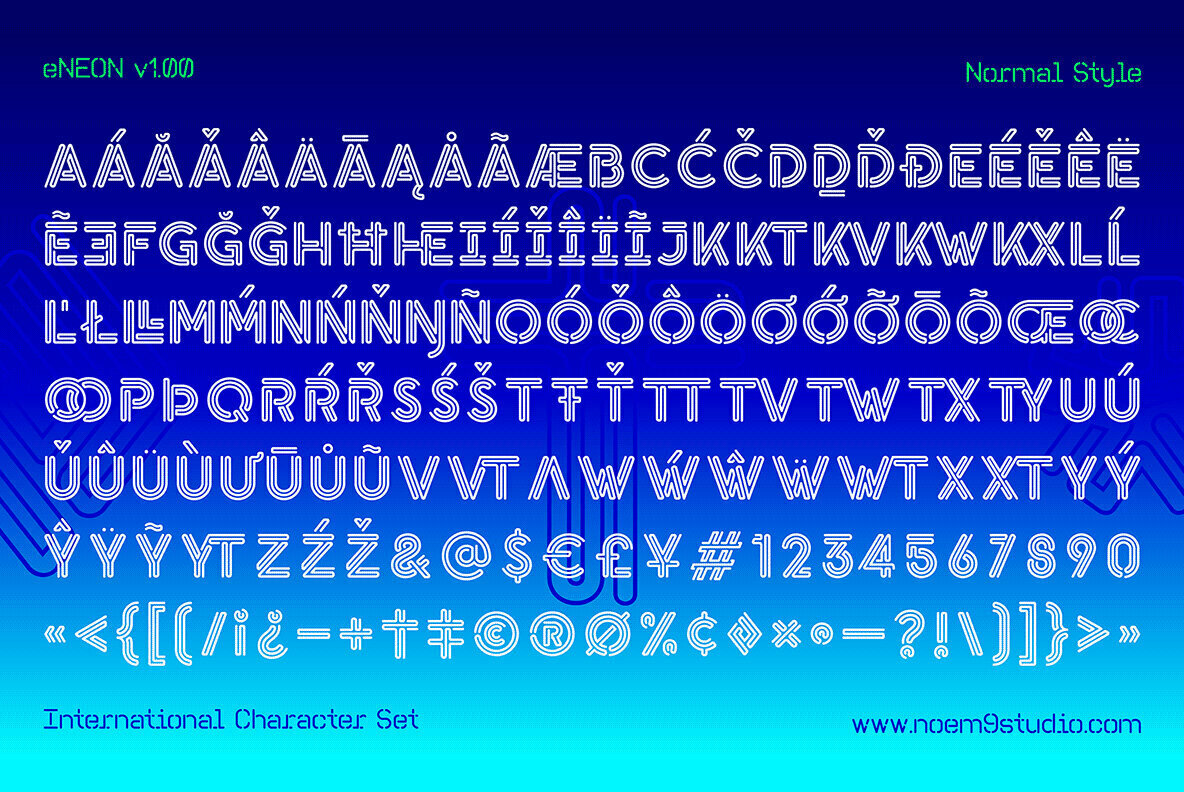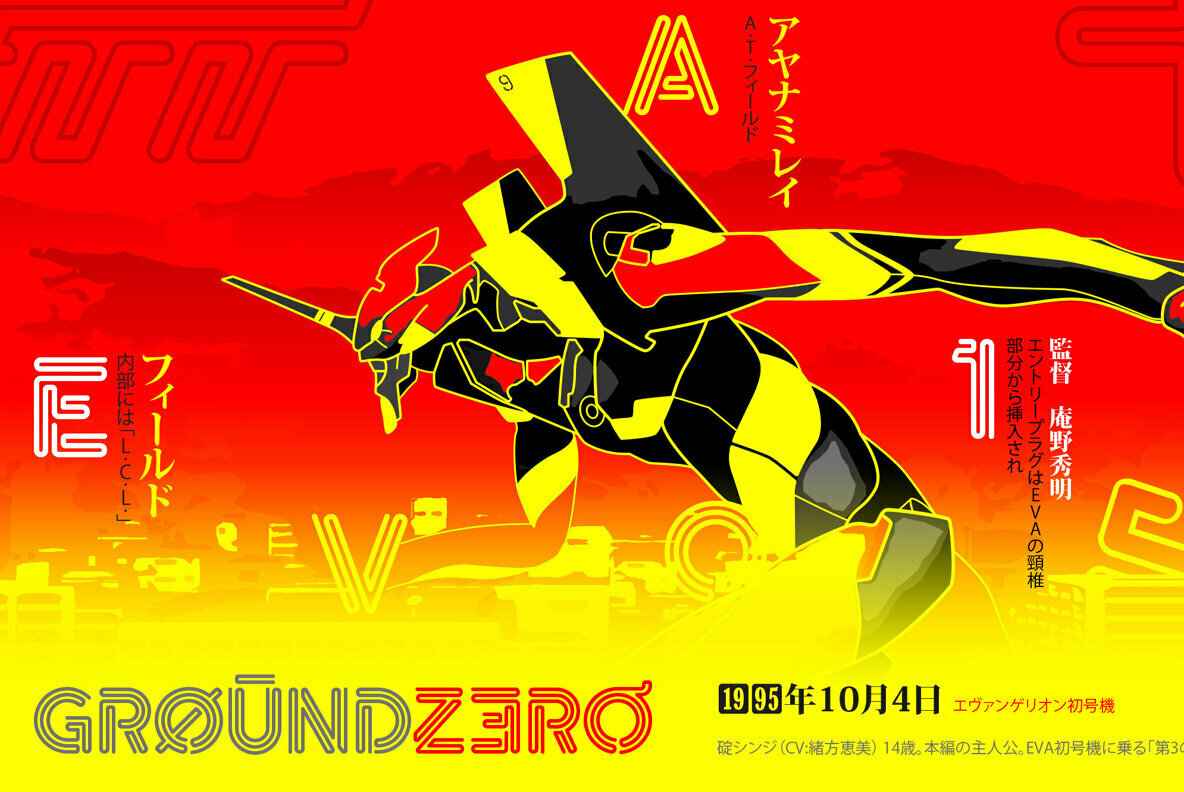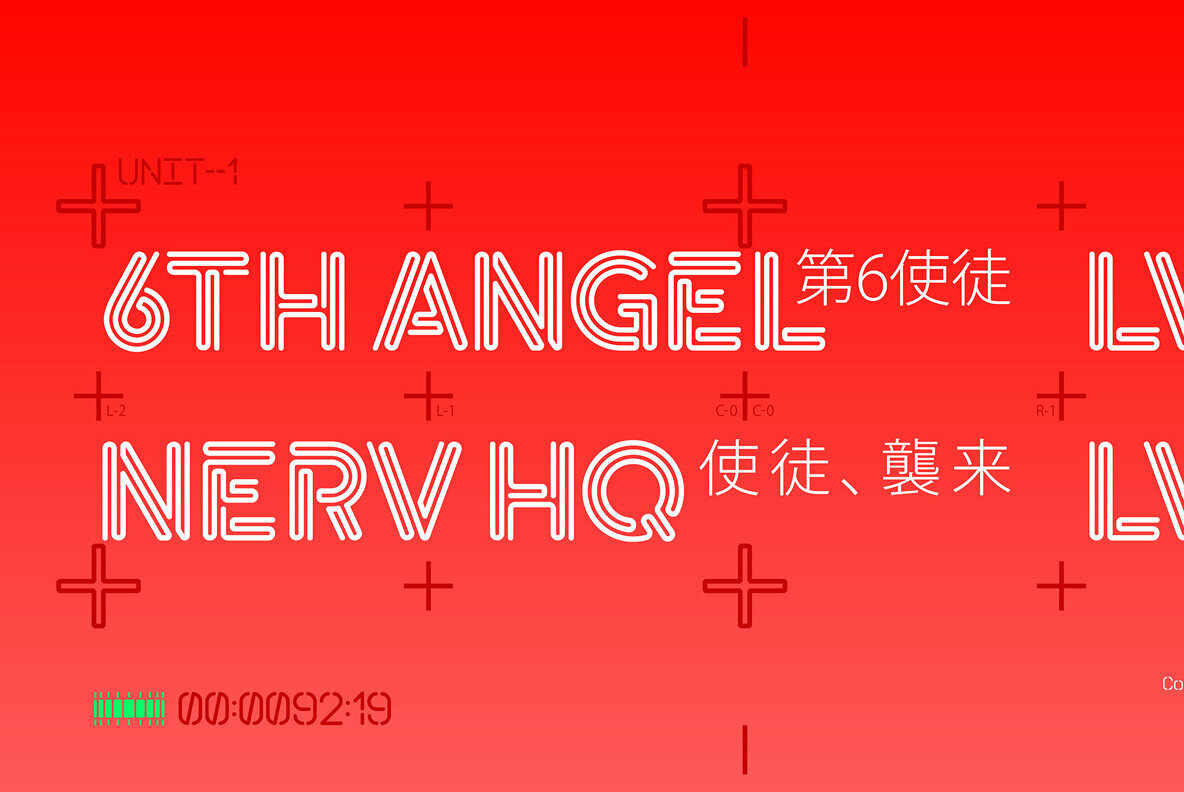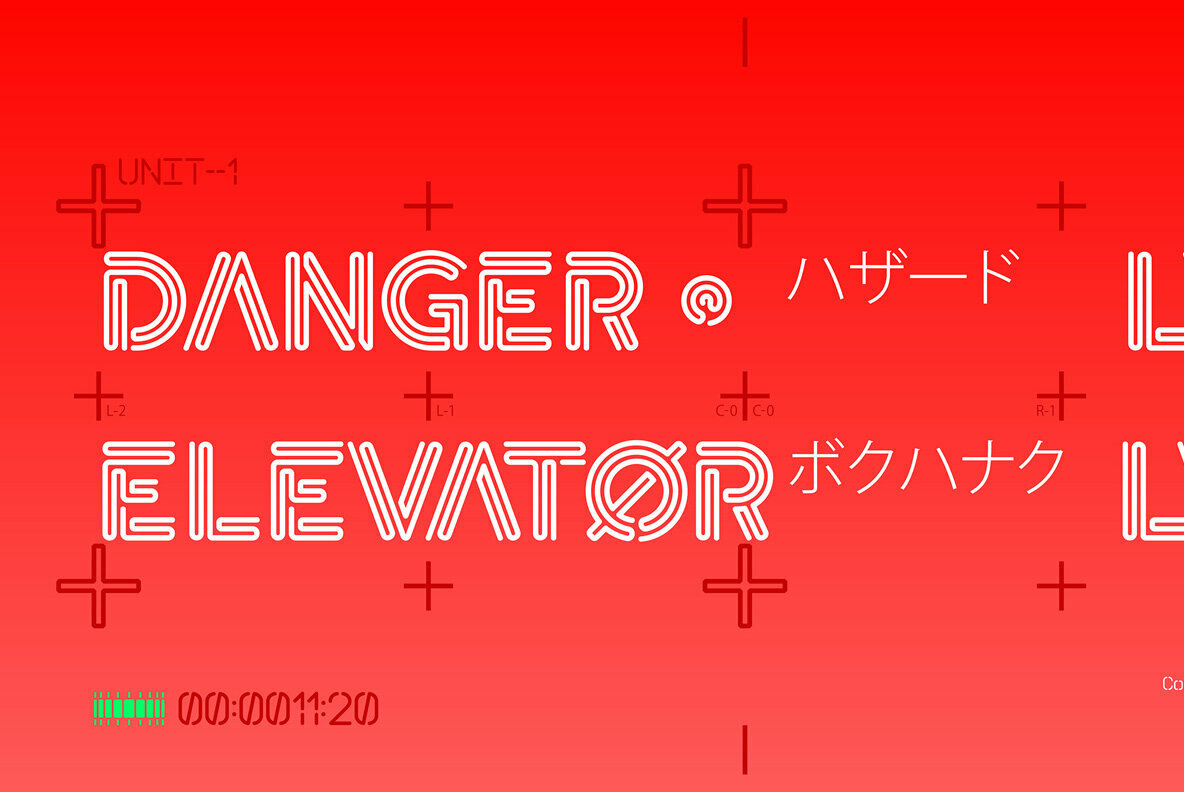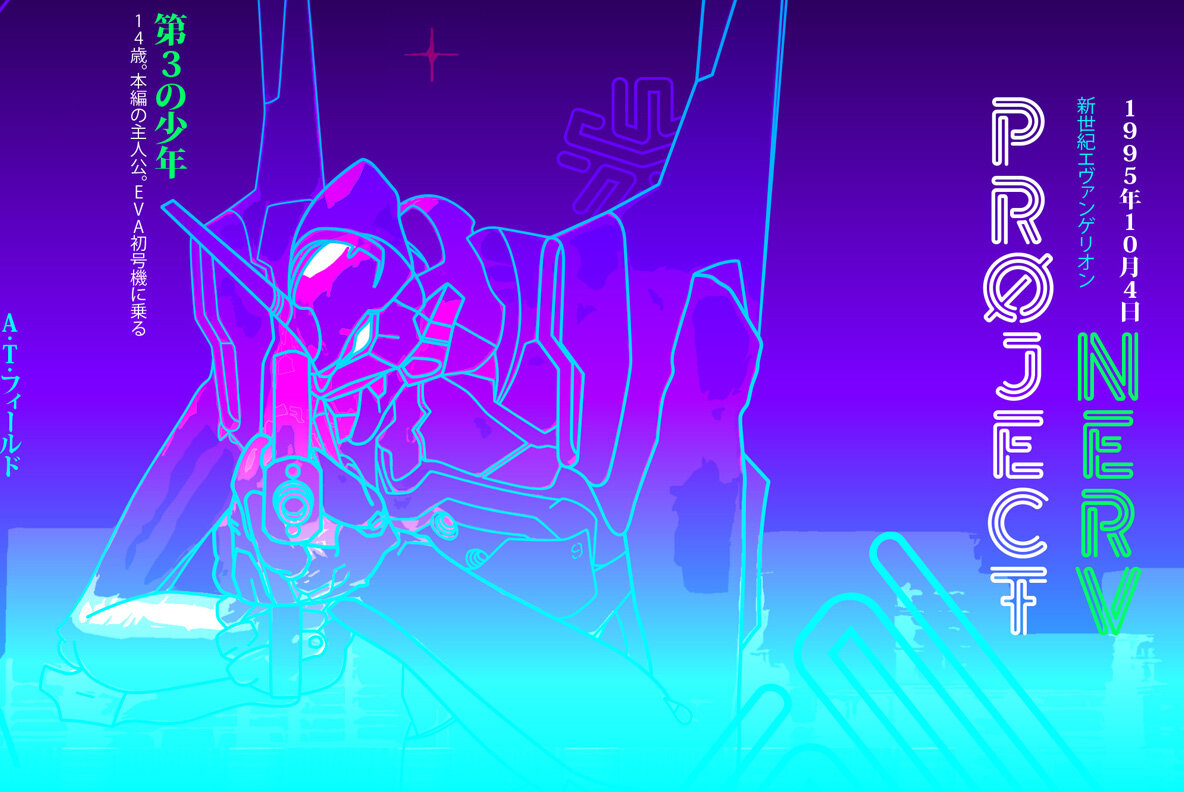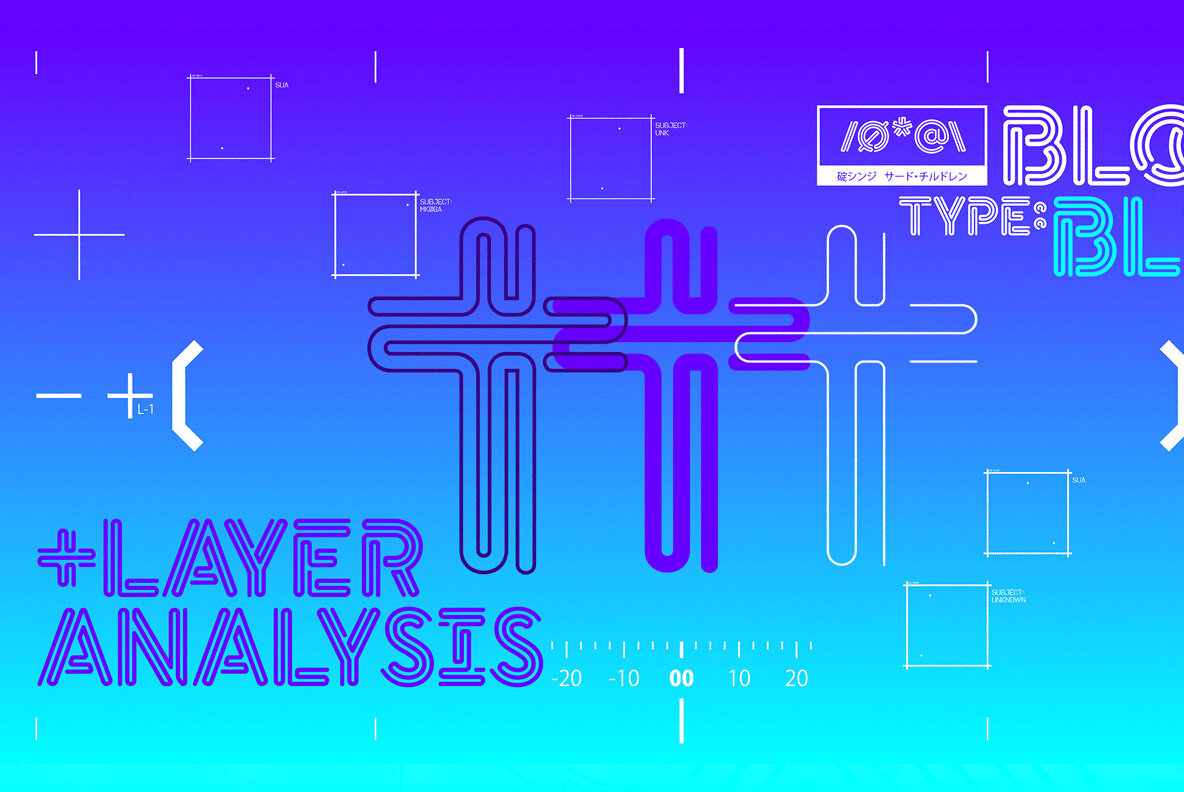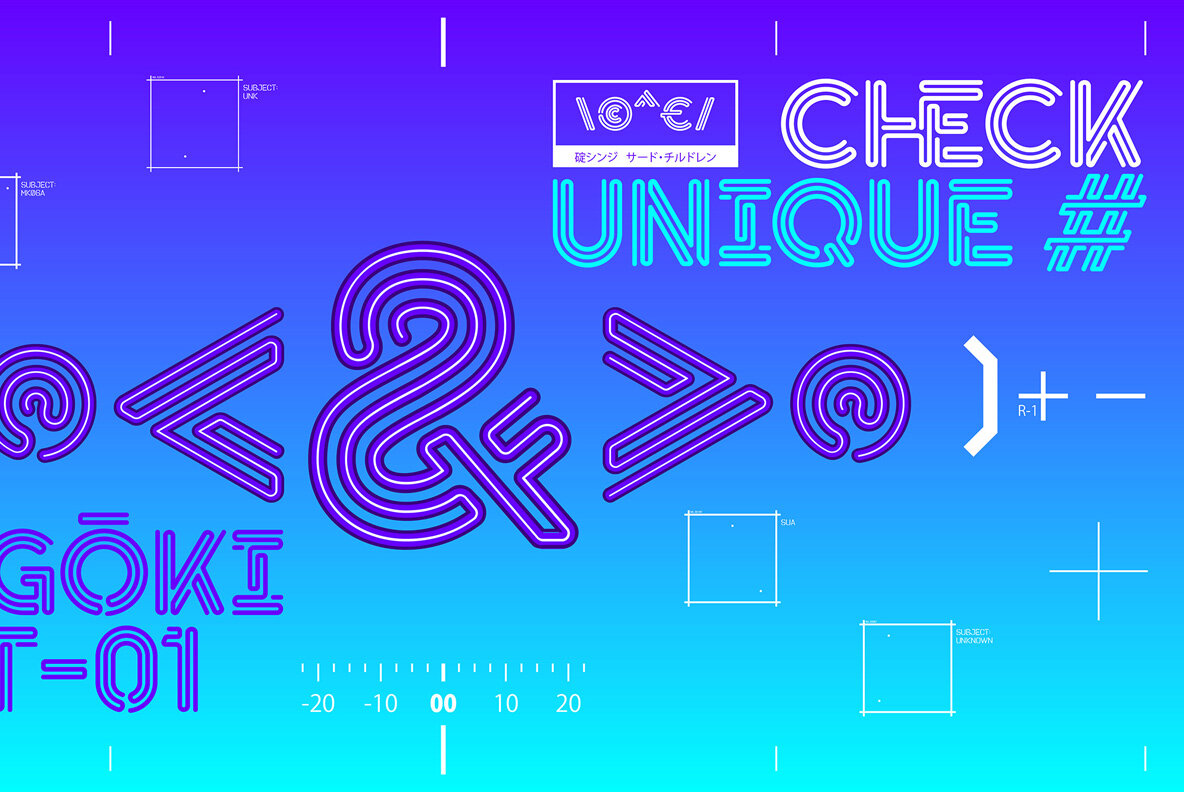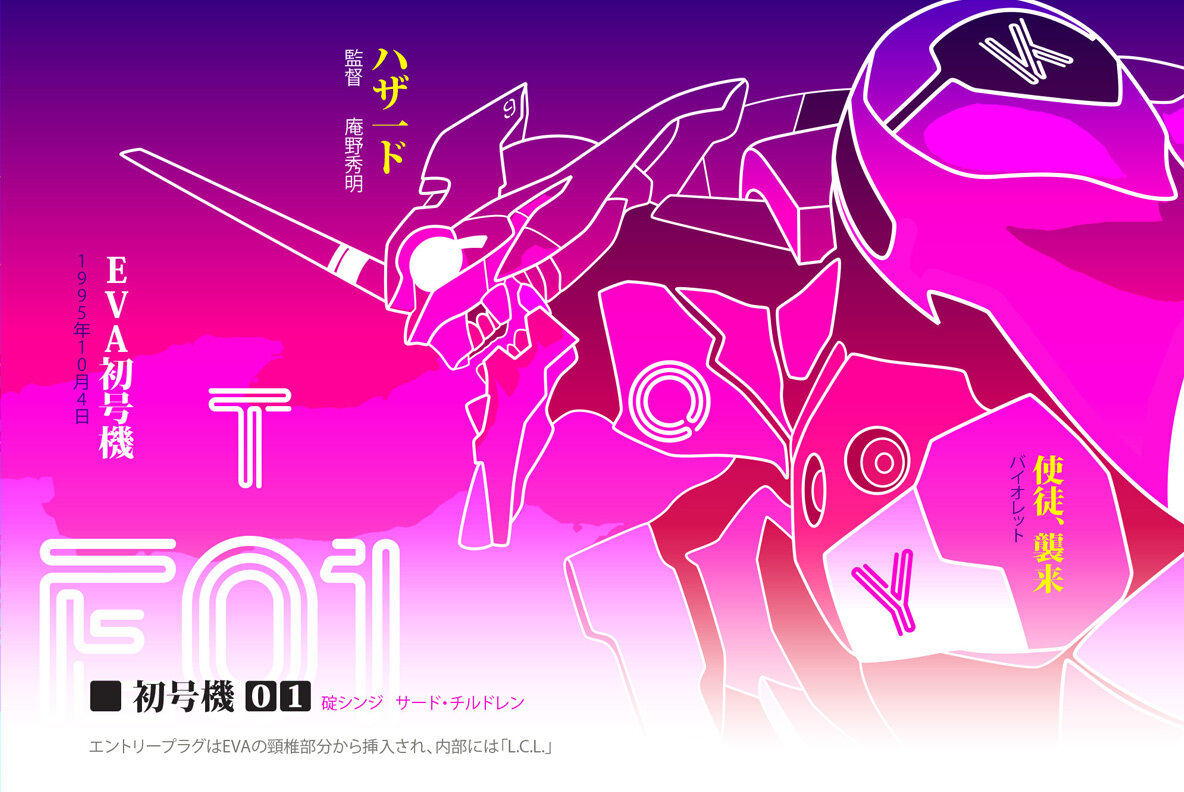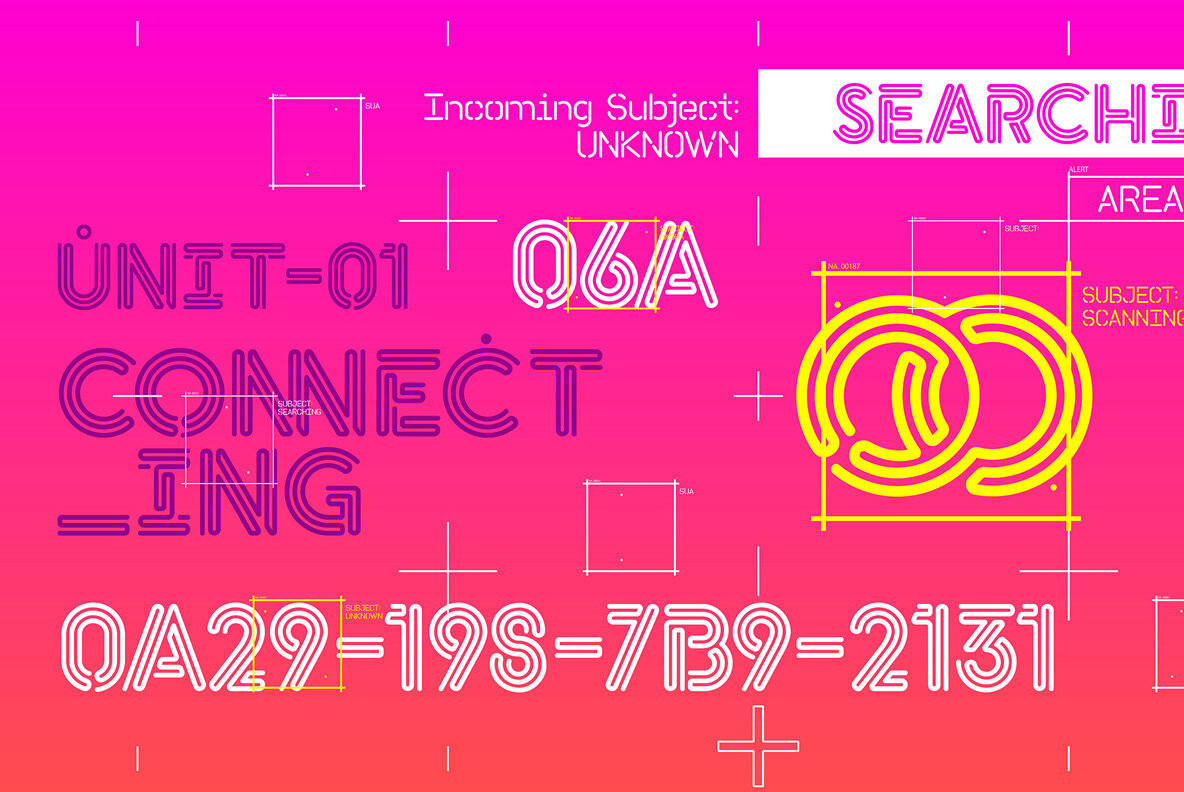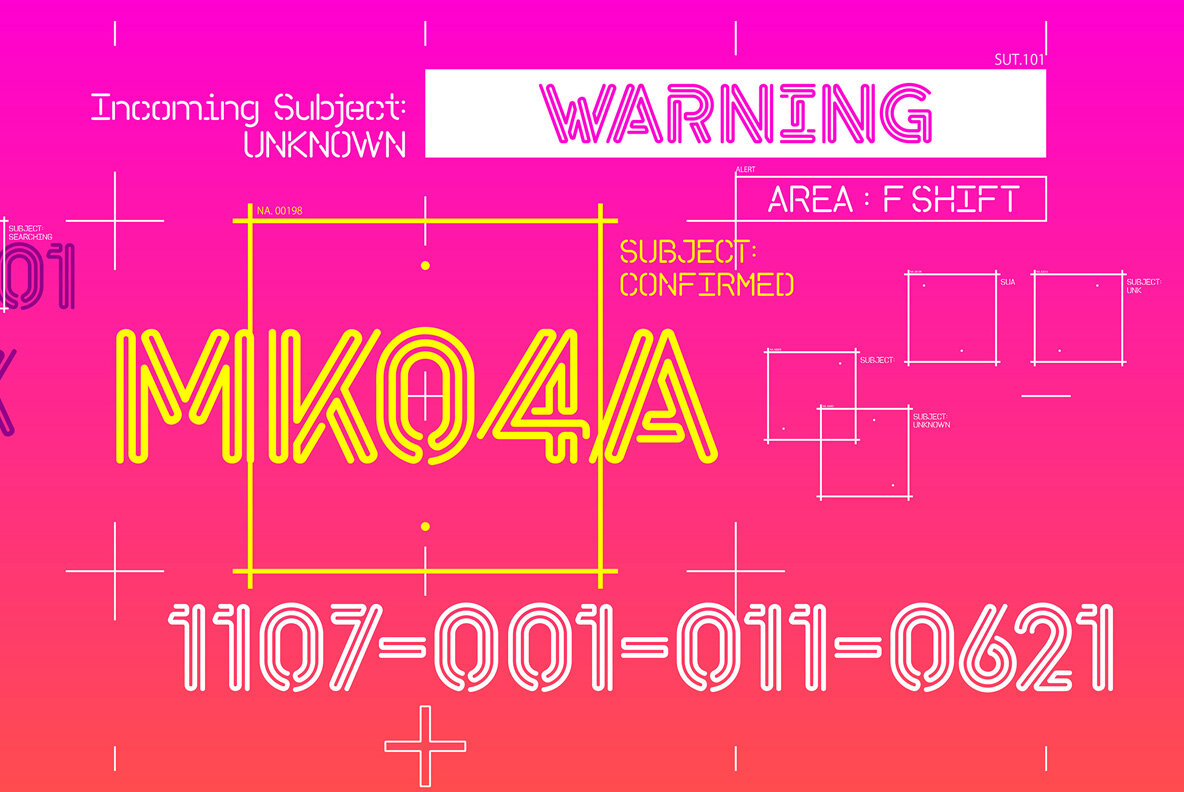
eNeon Font
eNeon is a layered typeface with 3 styles that you can stack together to create as many different comps as you want.
Inspired by neon signs and those tube shapes filled with gas that brighten the streets of so many cities. Smooth curves and stroke joints that simulate that ancient art of glass-blowing.
- More than 500 Glyphs
- 3 Different Styles (Outline, Inline & Normal)
- Full Accented Character Set
- Numbers + Punctuation Marks
- International Characters